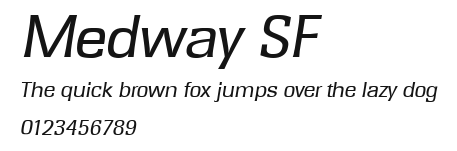
About Medway SF.ttf
Medway SF.ttf is a modern, elegant sans-serif font designed for ultimate readability and visual harmony. Perfect for branding, headlines, web design, and print materials.